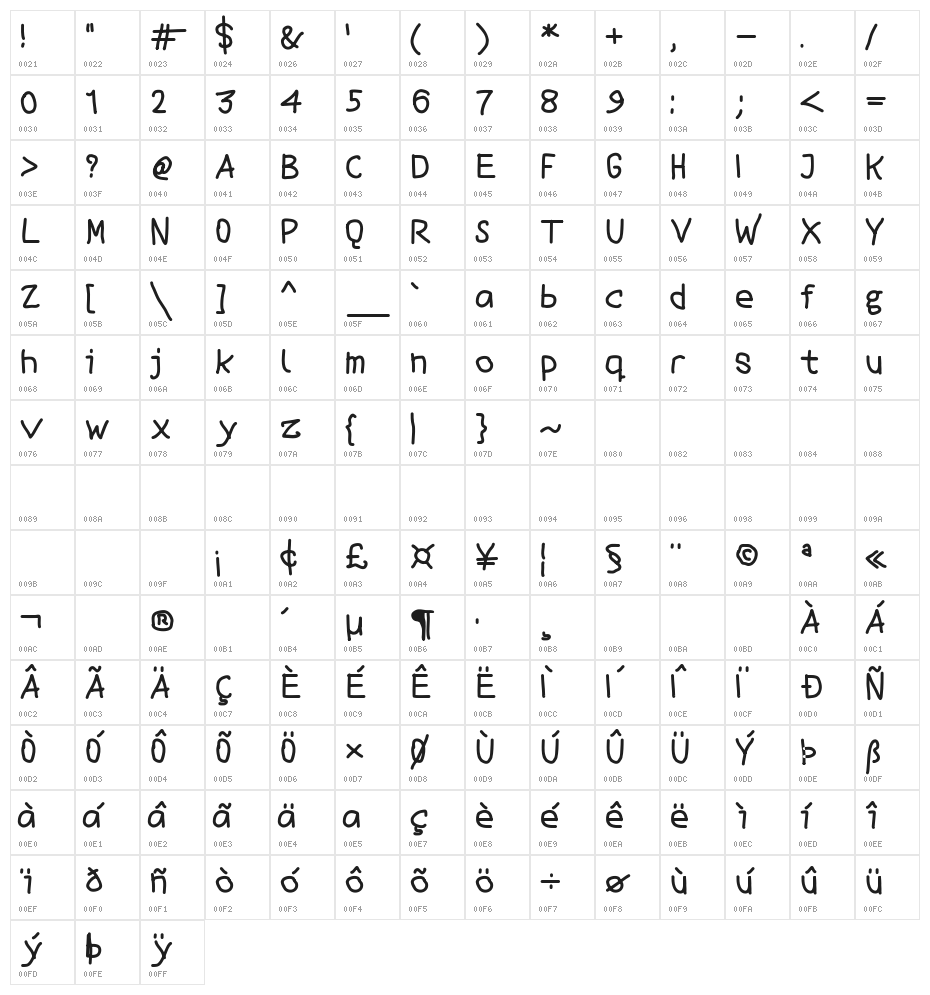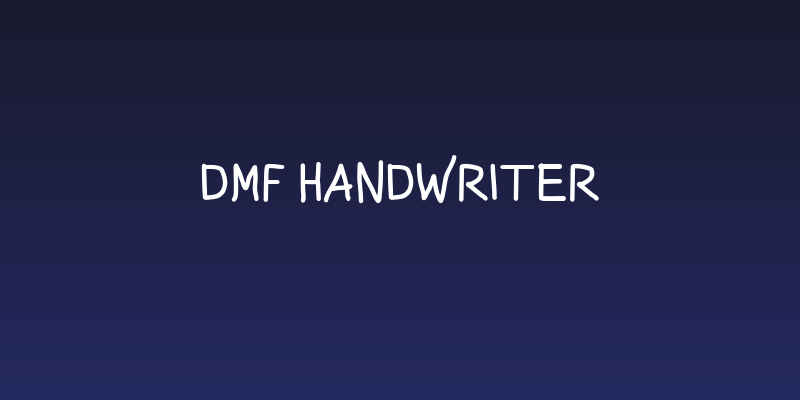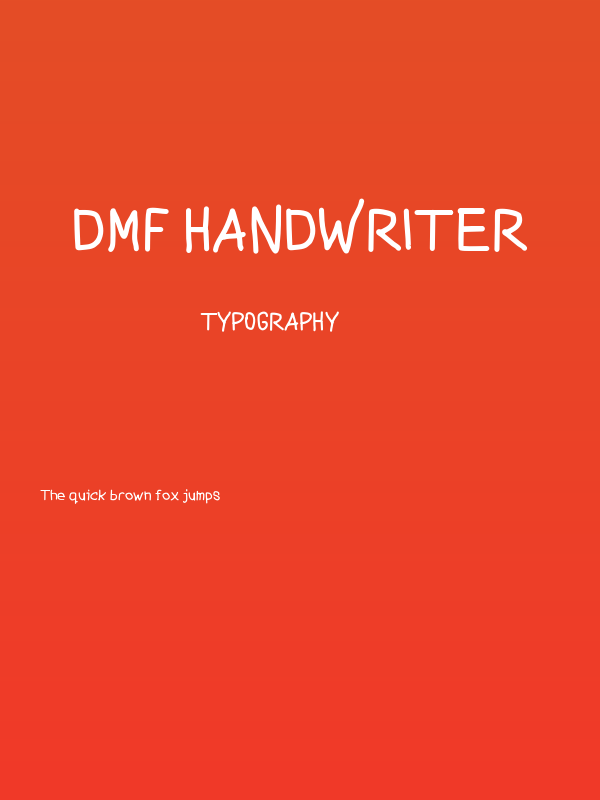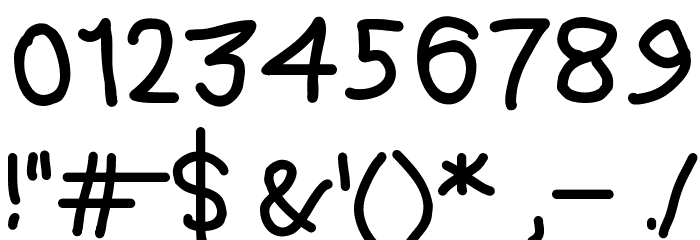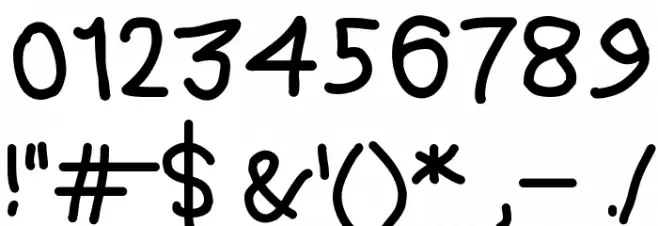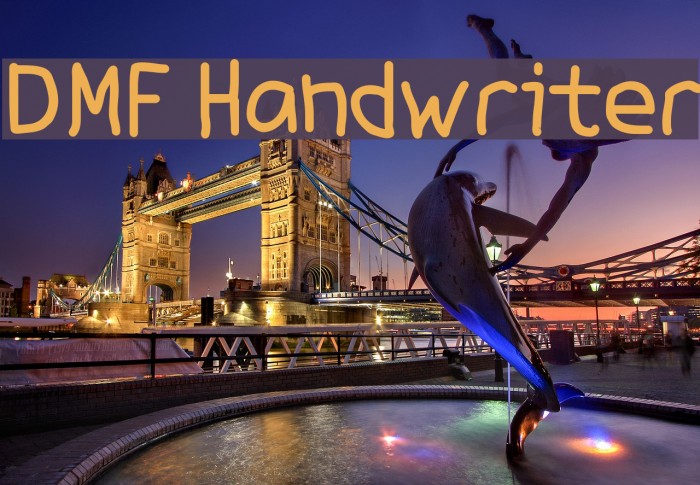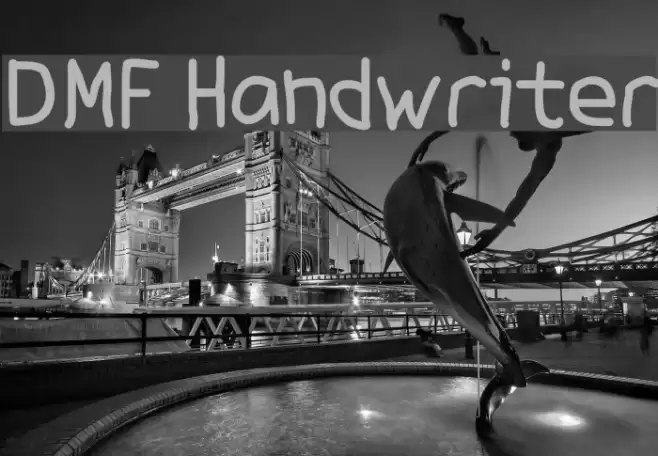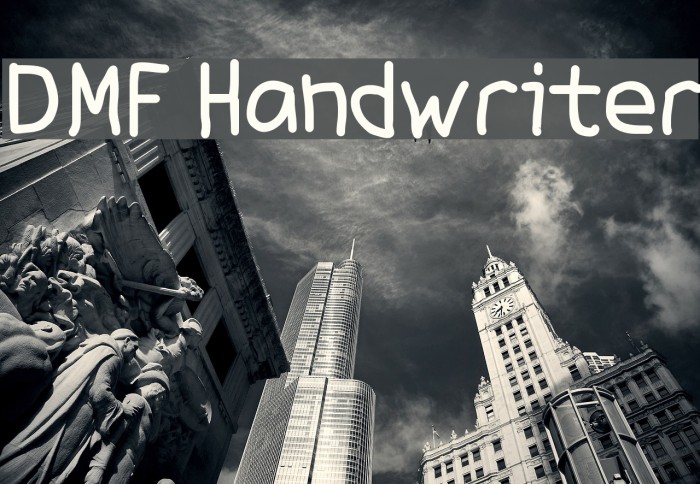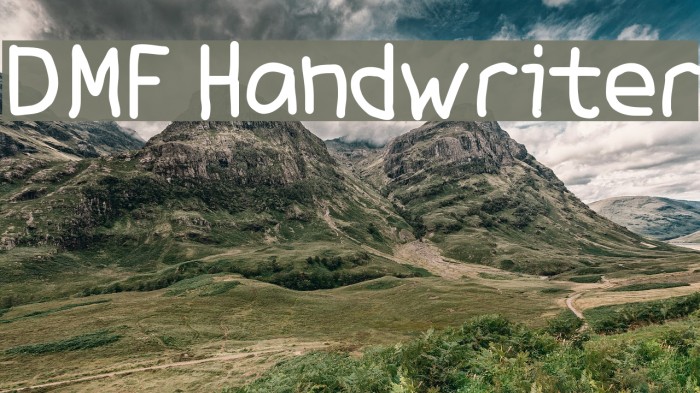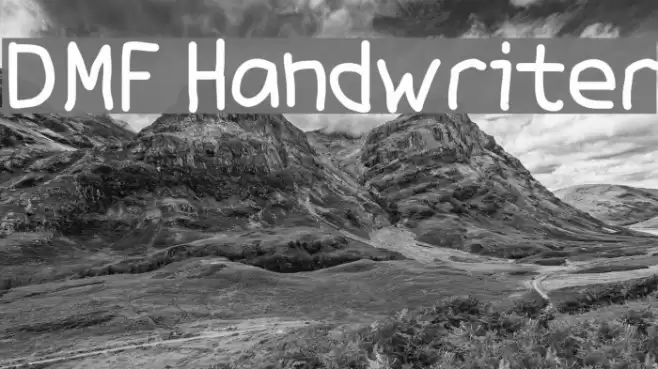
DMF Handwriter Font
DMF Handwriter Description
This font exudes a playful and casual handwritten style, characterized by its rounded and slightly irregular letterforms. The strokes are consistent in thickness, giving it a uniform appearance while maintaining a hand-drawn feel. The uppercase and lowercase letters are well-balanced, with a slight tilt that adds to the informal charm. The numerals and special characters follow the same style, ensuring cohesive design across different uses. This font is ideal for projects that require a personal touch, such as greeting cards, invitations, or children's book illustrations. Its friendly and approachable aesthetic makes it suitable for conveying warmth and creativity.
| Overall Style | Casual, Playful |
| Use Case | Headlines, Informal text, Creative projects |
| Proposed Projects | Ideal for greeting cards, invitations, children's books, and creative projects needing a personal touch. |